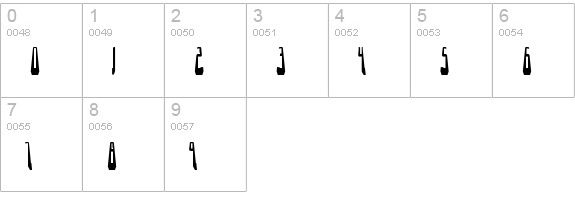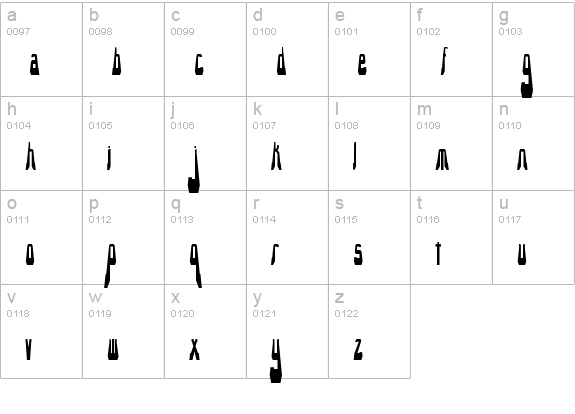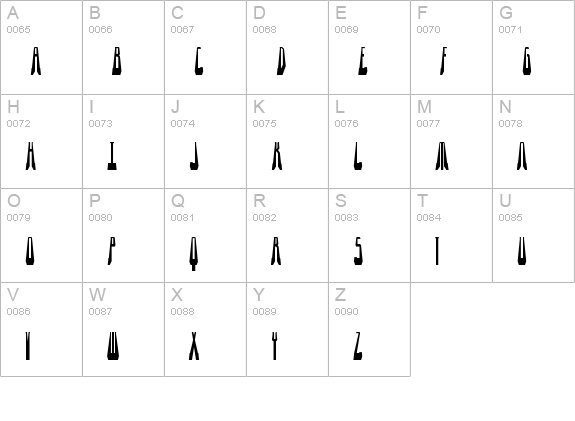
10.15 Saturday Night BRK Font Details
10.15 Saturday Night BRK font is a captivating and stylish typeface that exudes a modern yet edgy vibe. With its sleek lines and unique design elements, this font is perfect for adding a touch of sophistication to any project. Whether you're working on a poster, logo, or website, 10.15 Saturday Night BRK font will make your text stand out and leave a lasting impression. Best of all, this font is available for free download at FontsMarket.com. Simply visit the website to access this stunning typeface and take your designs to the next level. Don't miss out on the opportunity to enhance your creative projects with the effortlessly cool 10.15 Saturday Night BRK font - download it today and let your creativity shine!